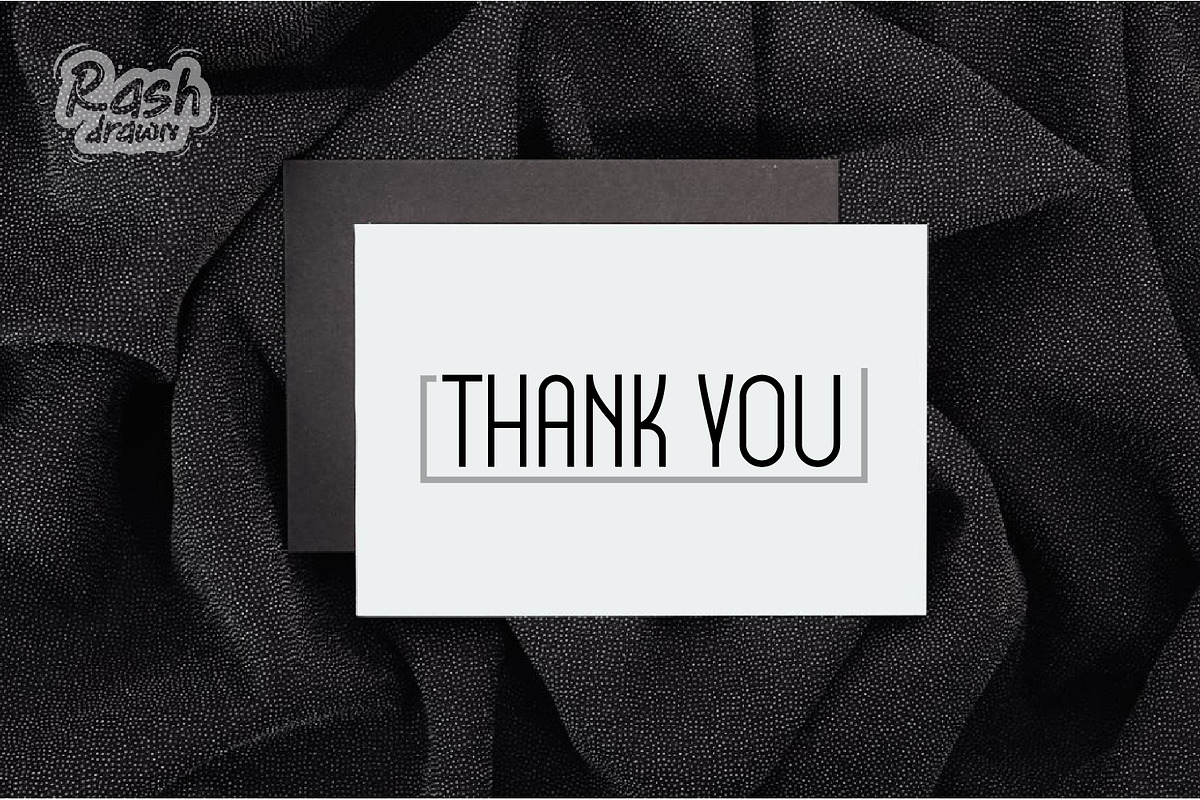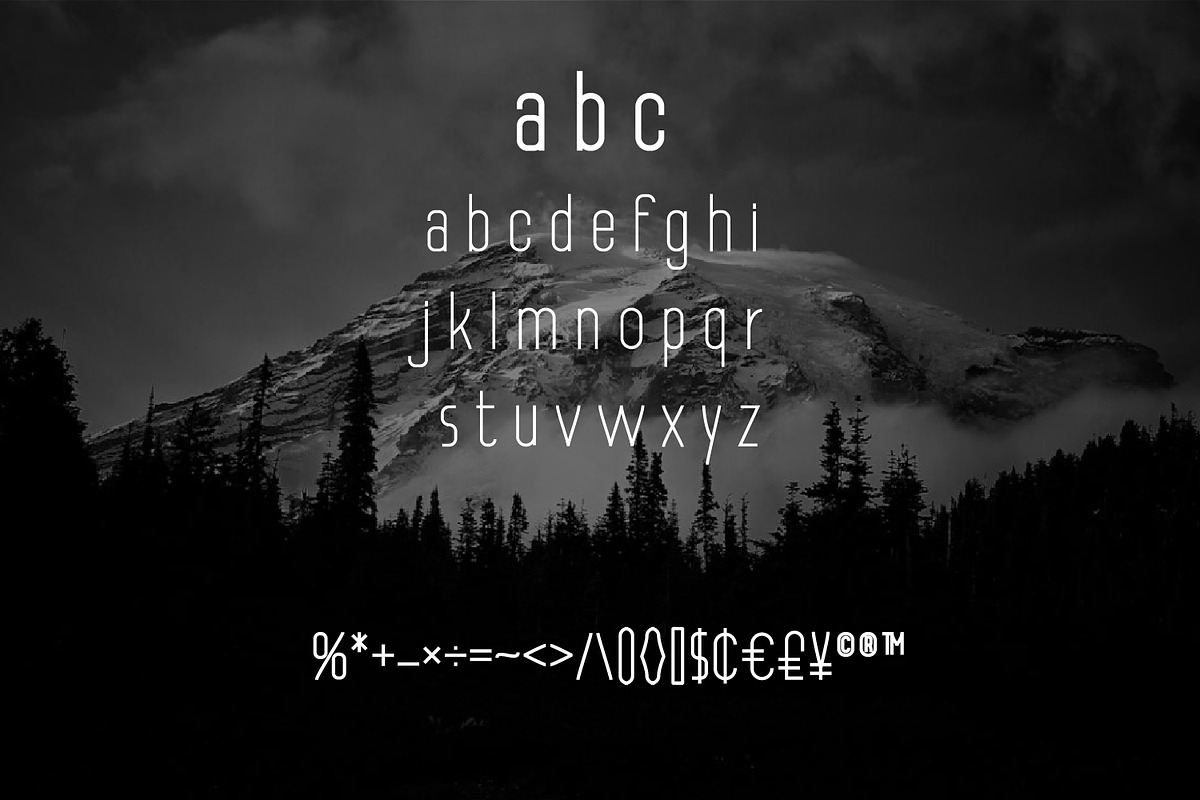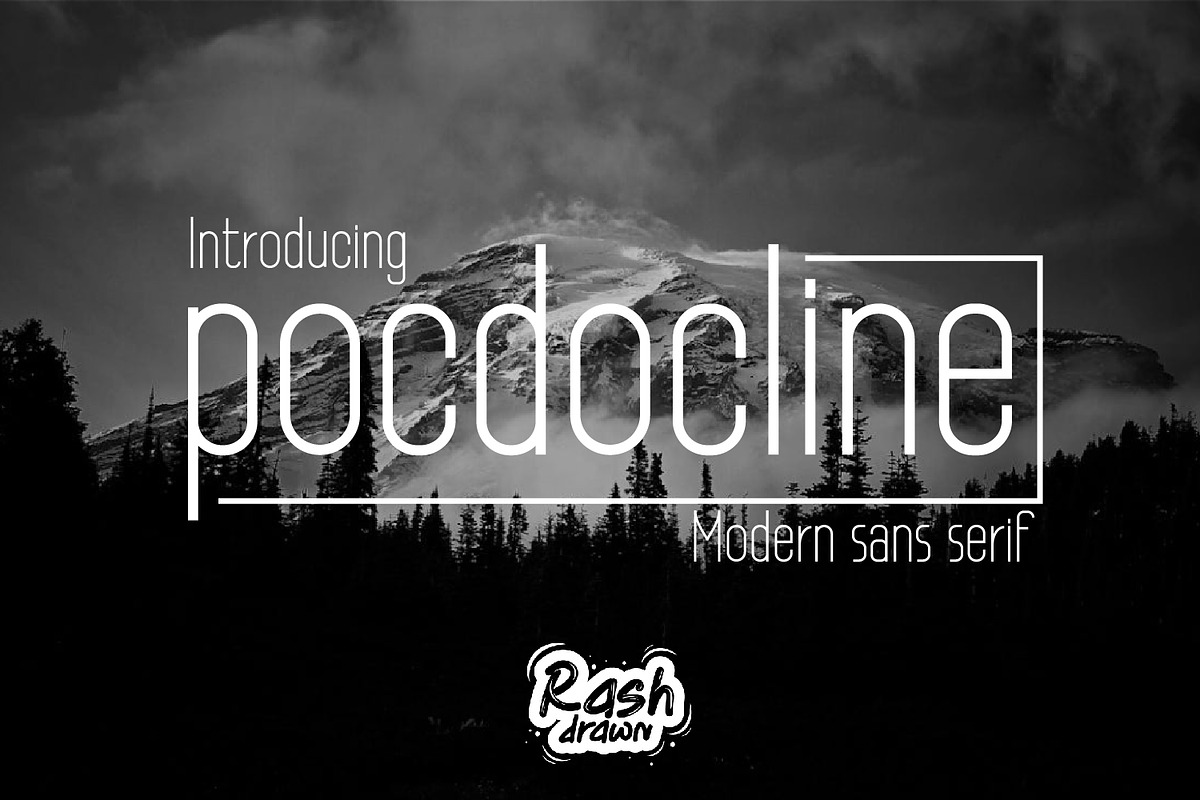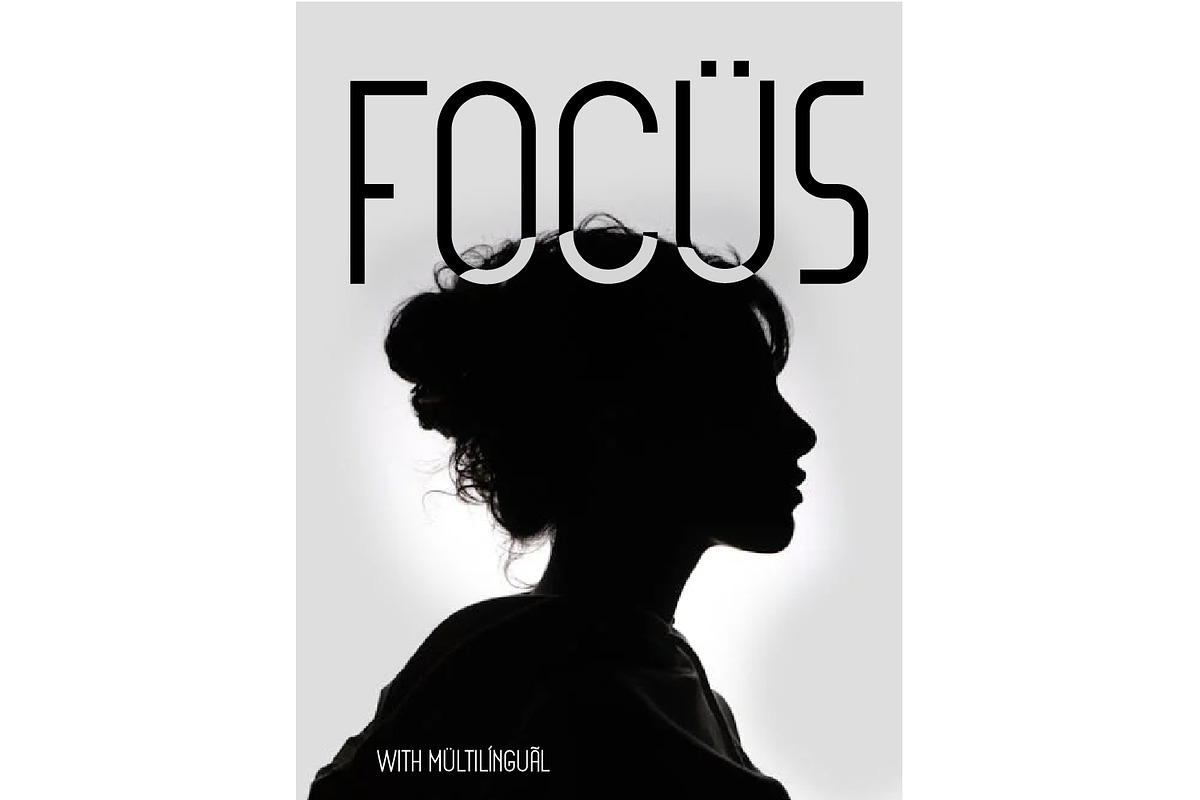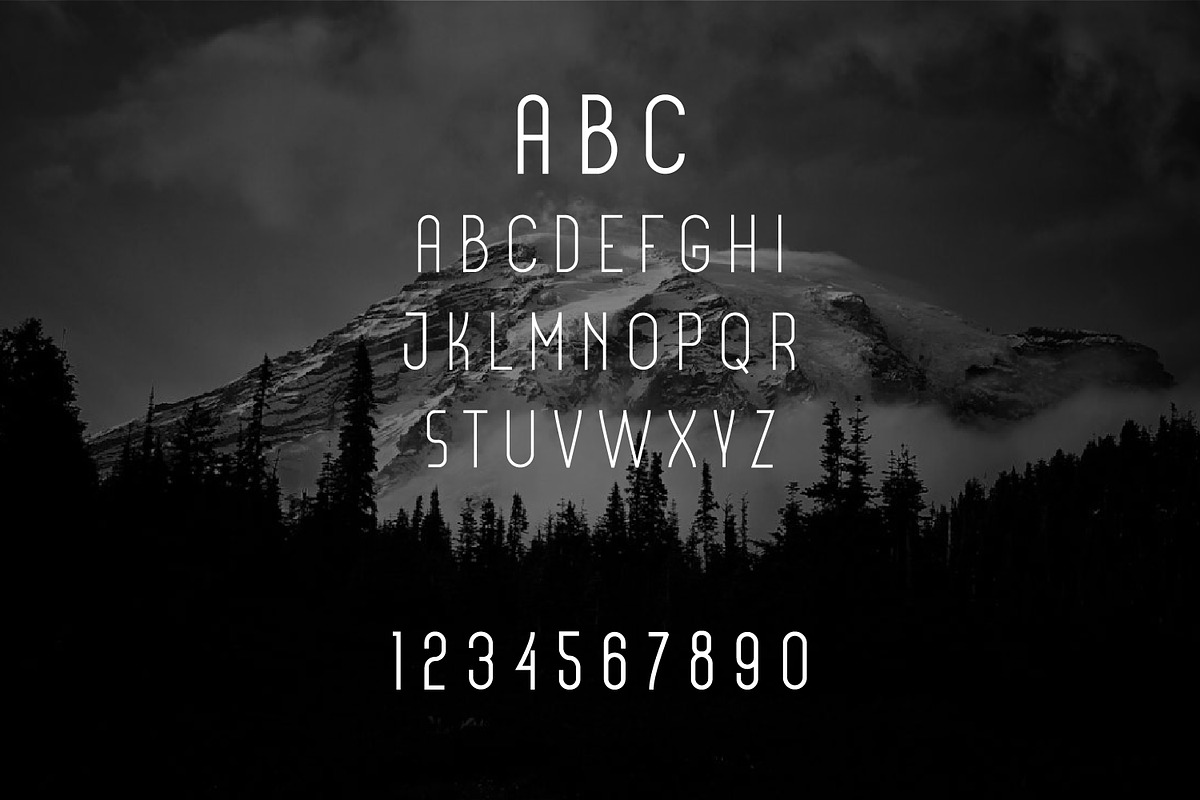
Pocdocline modern sans serif
Pocdocline is a simple and modern font, so it leaves a deep impression of memories when used. Simple and powerful. That's the overall description of the font. Pocdocline will be perfect for various projects.